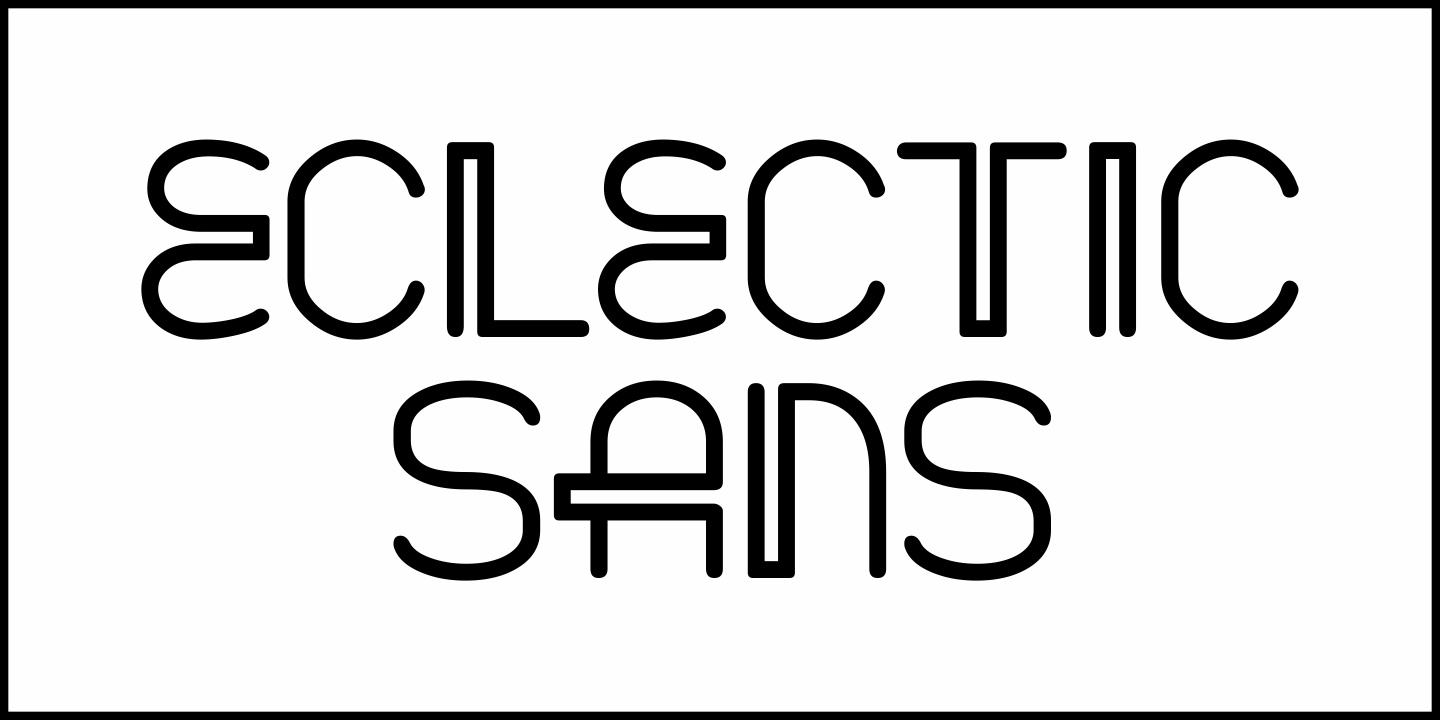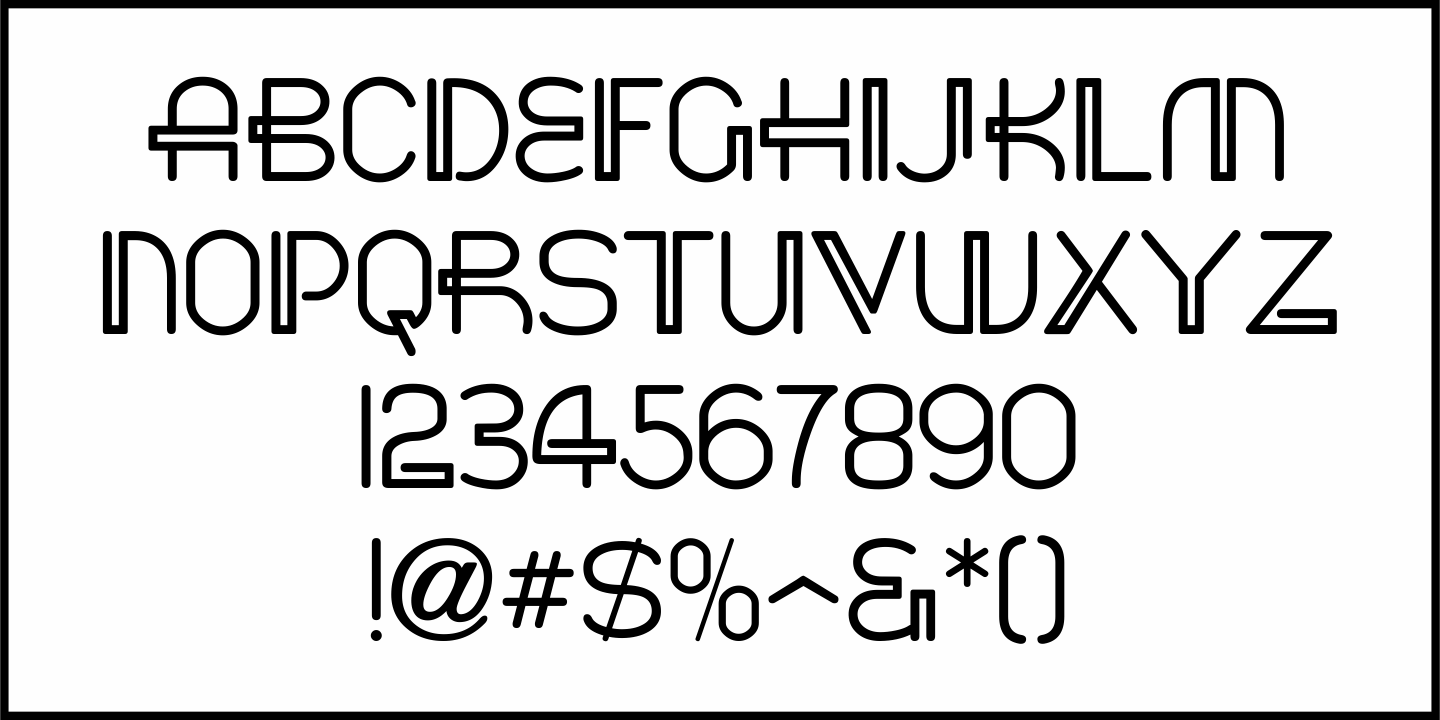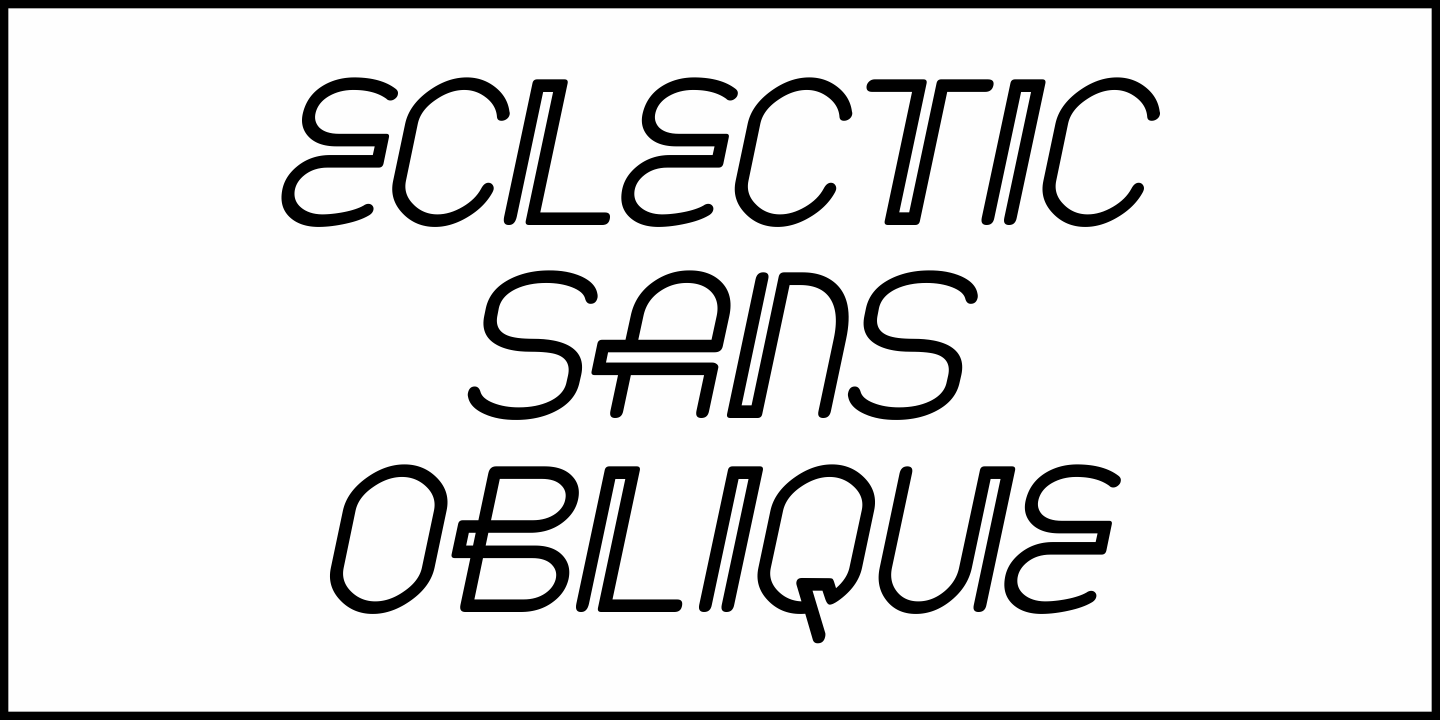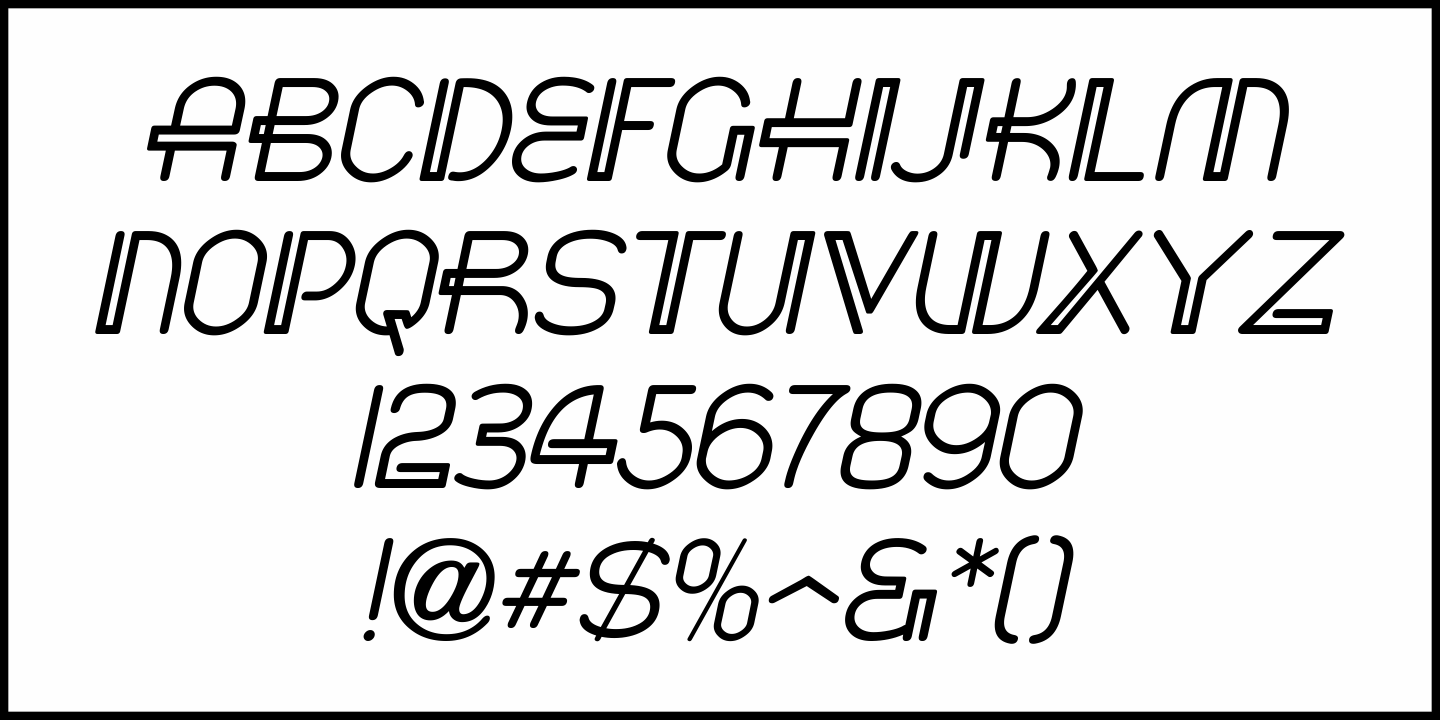
Eclectic Sans
This unusual and stylized sans serif type design comes from the 1954 publication "101 Alphabets" by Ben & Ed C. Hunt.  It's combination of Art Deco influence and modernistic experimentation creates lettering that is sure to draw attention.
Now re-drawn digitally as Eclectic Sans JNL, it is available in both regular and oblique versions.